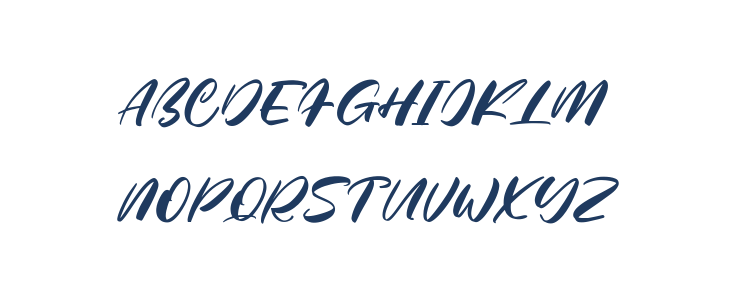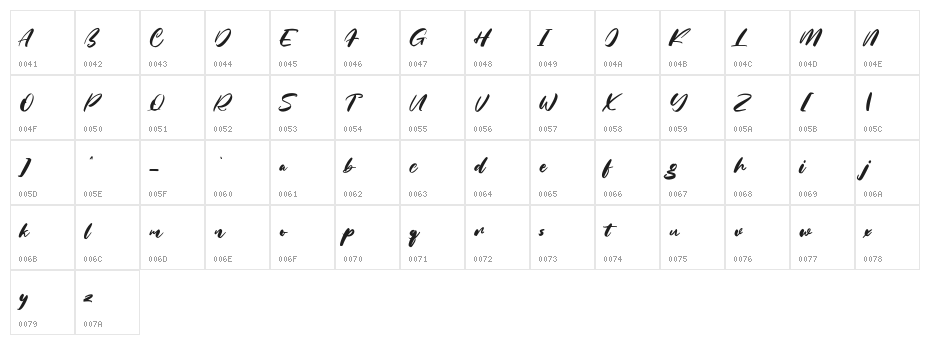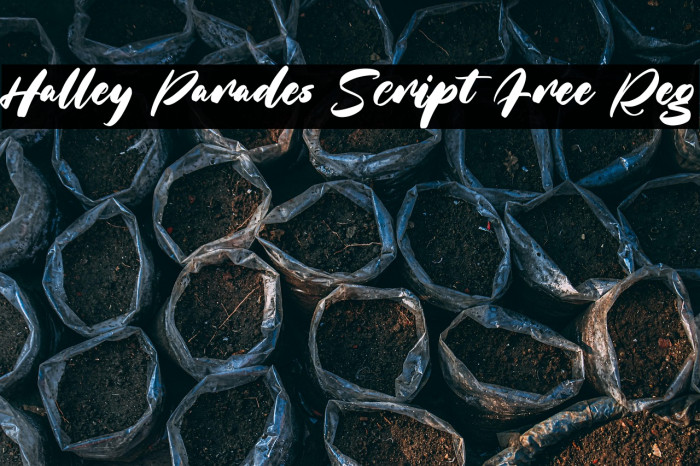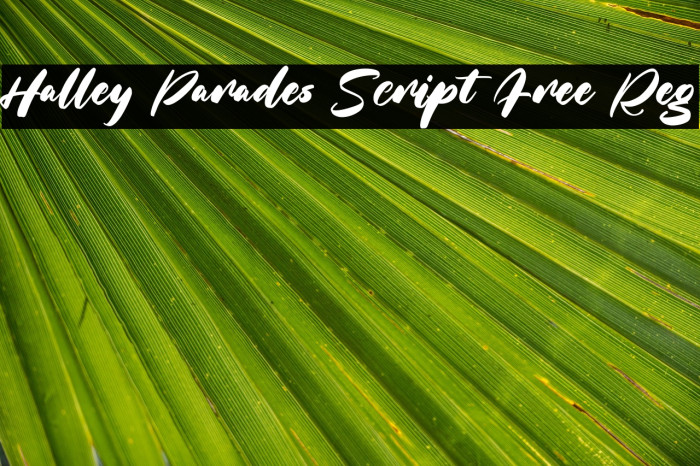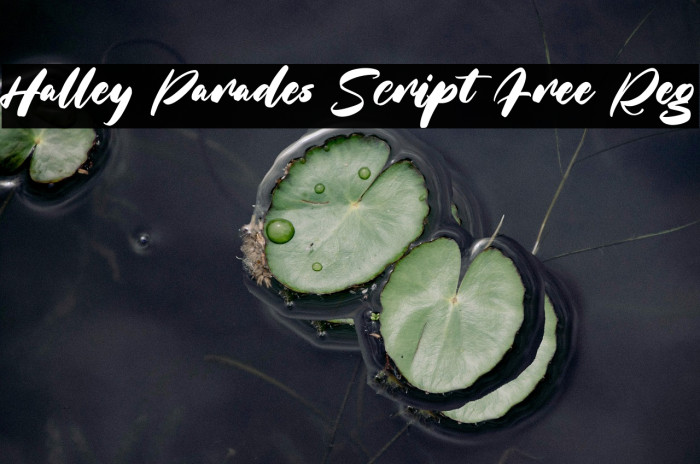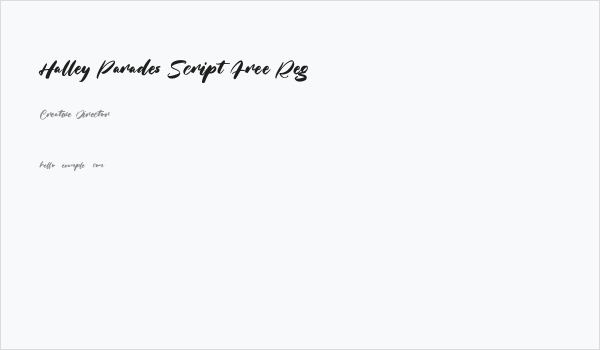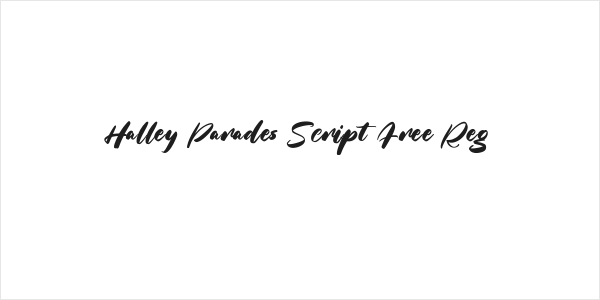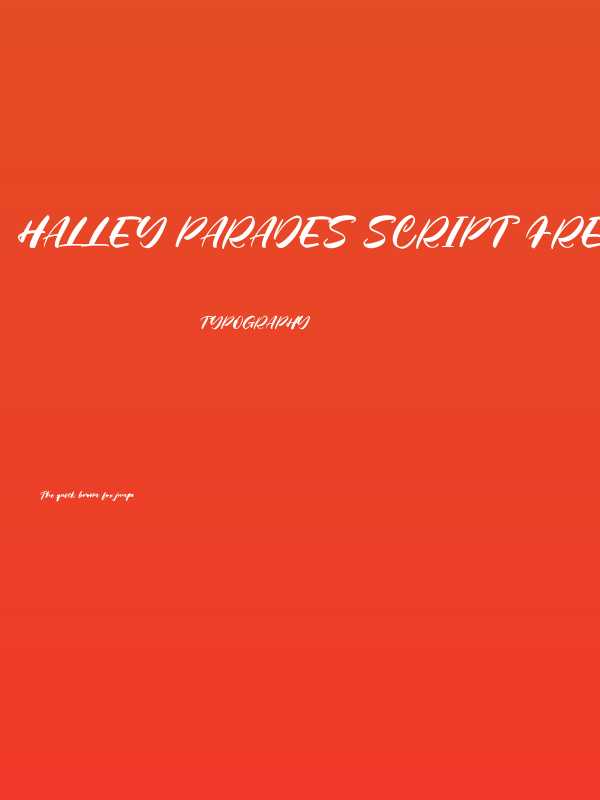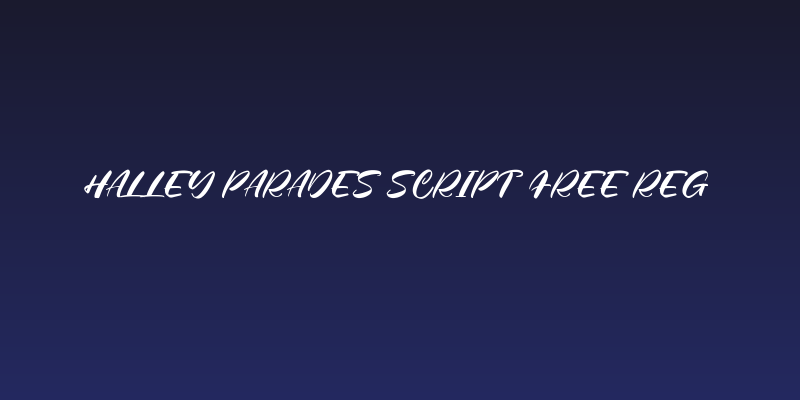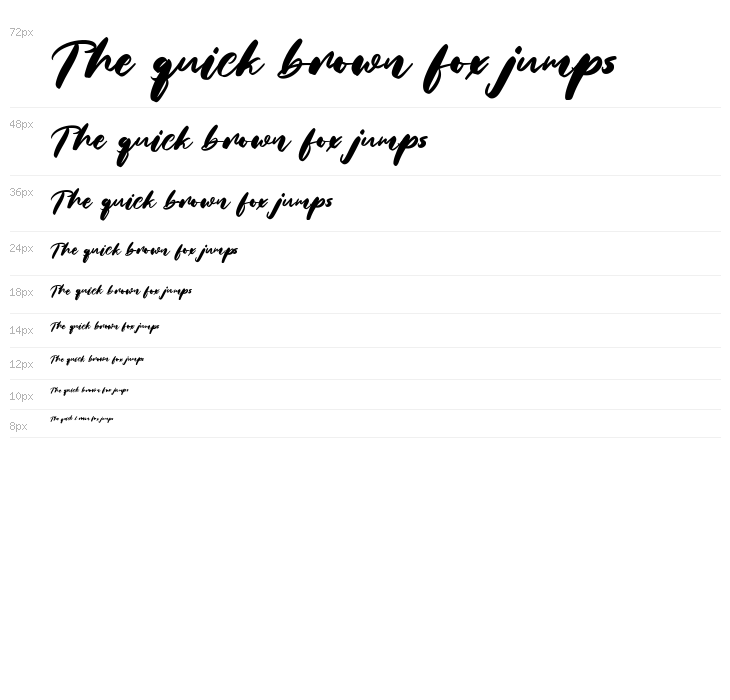
Halley Parades Script Free Reg Font
Halley Parades Script Free Reg Description
A bold, modern script font with a handwritten, brush-pen style. The strokes are thick and fluid, with dynamic curves and a casual, energetic feel. Letters are slightly slanted, and the overall appearance is expressive and lively.
| Overall Style | Modern, Decorative, Handwritten |
| Use Case | Logos, Headlines, Invitations, Posters |
| Proposed Projects | Greeting cards, branding, social media graphics, invitations, posters, and expressive headlines. |